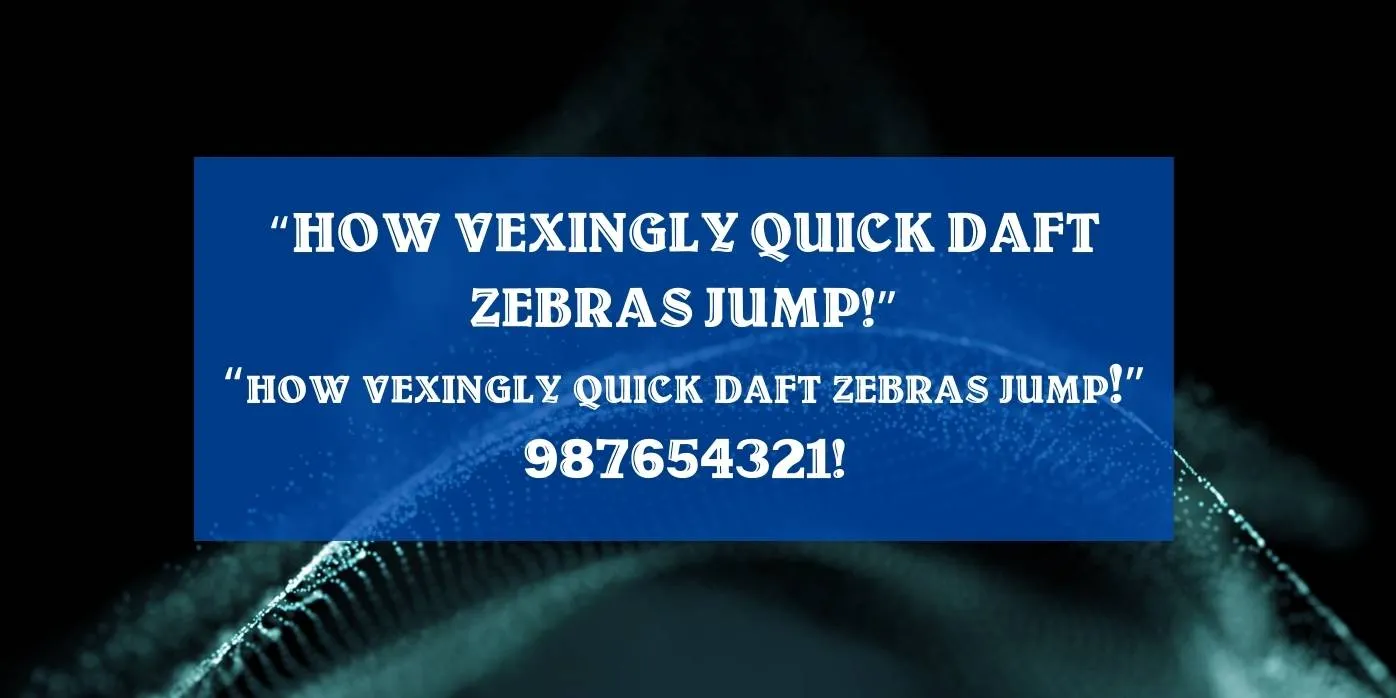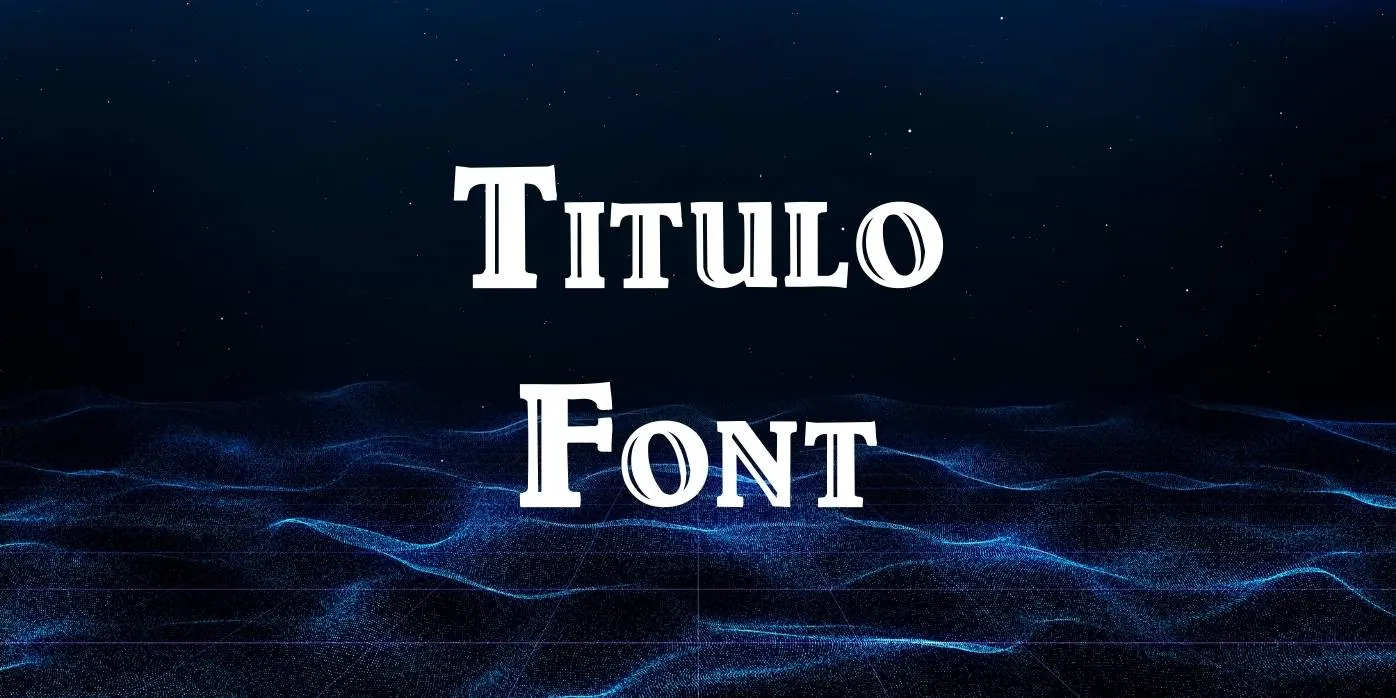
Titulo Font
Here we present a modern font family Titulo Font. It belongs to the display font family and was developed by LletresCAT. The whole set contains six weights from Light to Black with matching italics. All of them are characterized by high contrast and clear forms.
This Font is perfect for display purposes. Another similar font which is hulk font is perfect for different designs. It will look great on headlines, posters, and titles. The family comes in regular and italic styles.
There are 6 different weights available ranging from light to black. All the fonts have a high contrast and clean shapes making them perfect for display purposes. If you are looking for a modern font family that is perfect for display purposes, then Titulo Font is the right choice for your designs. This typeface is also best for use in Canva.